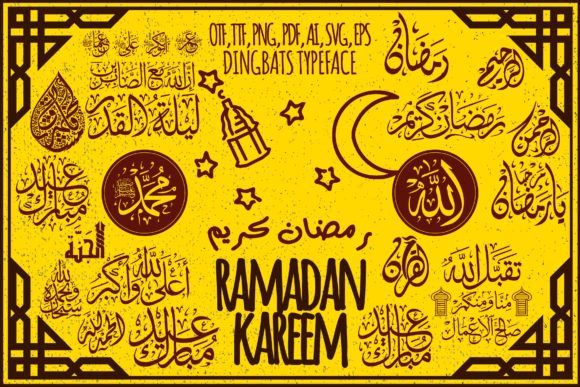
Looking for a unique and eye-catching way to add some love to your designs? Look no further than Ramadan Font! Created by Minimalistartstudio, this dingbats typeface is the perfect way to add some Arabic calligraphy-inspired flair to your crafting, digital design, presentations, or greeting card making.
With up to 62 unique derivatives available, you can be sure that your designs will stand out from the crowd. And, with a focus on Islamic and Arabic religion and culture, Ramadan Font is the perfect way to add some cultural significance to your work.
But, Ramadan Font is more than just a pretty face. With its focus on calligraphy and intricate design, this font is also a great way to promote mindfulness and reflection in your work. Whether you're using it to create designs that celebrate the holy month of Ramadan or simply to add a touch of elegance and beauty to your work, Ramadan Font is the perfect choice.
So why wait? Whether you're a seasoned designer or just starting out, Ramadan Font is the perfect way to take your work to the next level. With its unique design, focus on calligraphy and culture, and ability to help you generate up to 62 unique derivatives, Ramadan Font is a must-have for anyone looking to add some love to their designs.